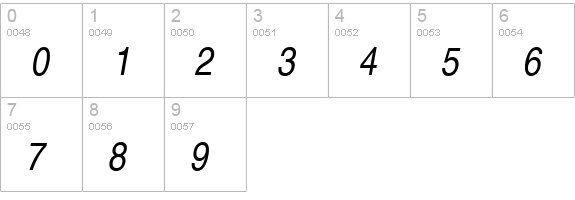
Sans-PS-Cd-Italic Font Details
Sans-PS-Cd-Italic is a distinctive, italic variant in the Sans typeface family \xE2\x80\x94 well suited to design and typography projects.
Sans-PS-Cd-Italic is a stylish and modern font that exudes sophistication and elegance. With its sleek design and slanted italic style, this font is perfect for adding a touch of class to any project. The clean lines and sharp angles of Sans-PS-Cd-Italic make it ideal for use in a variety of design applications, from branding to editorial design. What's even better is that Sans-PS-Cd-Italic is completely free to download at FontsMarket.com. This means that you can enhance your projects with this stunning font without having to worry about breaking the bank. Whether you're a seasoned designer looking to add a new tool to your collection or a beginner wanting to experiment with typography, Sans-PS-Cd-Italic is a fantastic choice that won't cost you a penny. Download it today and elevate your designs with this beautiful and versatile typeface.